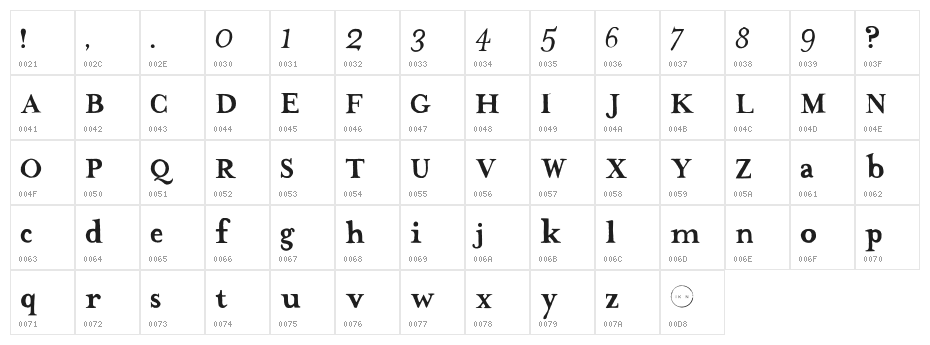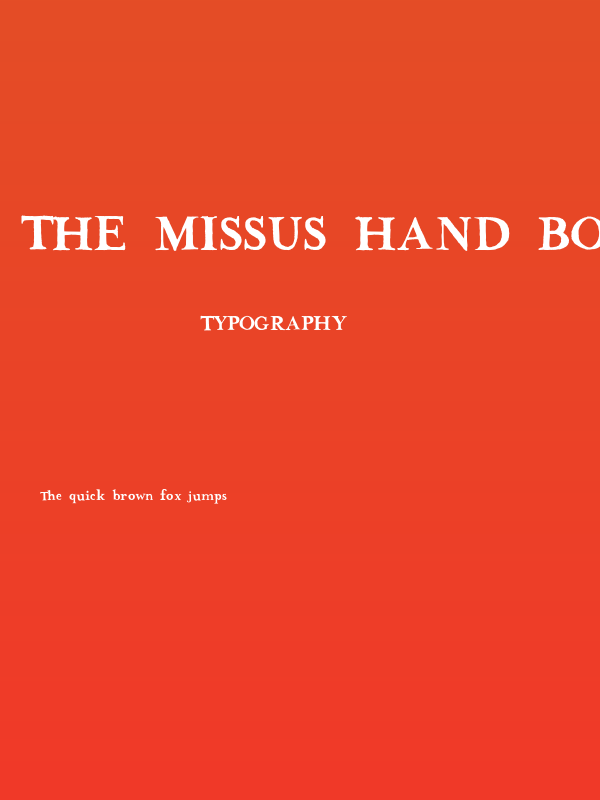
The Missus Hand Bold Font
The Missus Hand Bold Description
This font features a bold and expressive style with a hand-drawn appearance. The characters have a slightly irregular and organic shape, giving them a unique and artistic flair. The uppercase letters are strong and prominent, while the lowercase letters maintain a consistent flow with a touch of whimsy. The numerals are clear and distinct, complementing the overall design. The special characters add personality and charm, making this font suitable for creative and informal projects. Its boldness ensures readability while maintaining a playful and engaging aesthetic.
| Proposed Projects | Ideal for greeting cards, posters, branding projects, and creative invitations. |